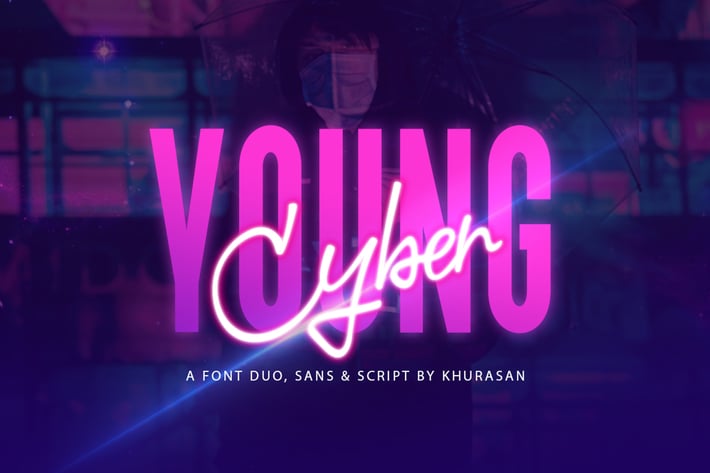
Young Cyber Font Duo
khurasan
The Young Cyber font is a font duo type, elegant and vintage feel character set. The Young Cyber has two different styles, script & sans. Young Cyber font it’s perfect for , poster, logo, magazine, cover, banner, tshirt and headers, or even large-scale artwork.